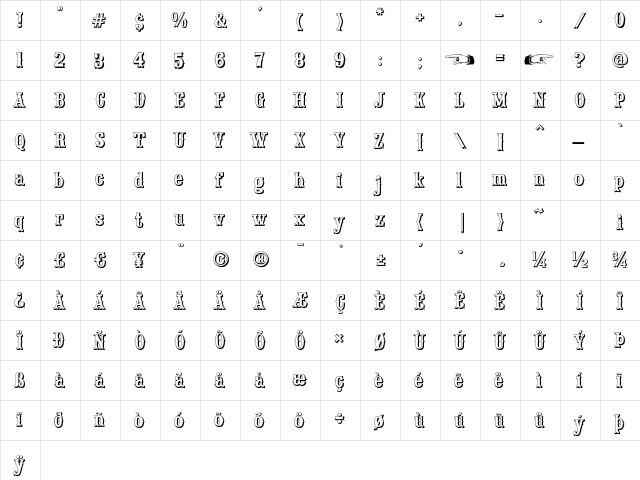
Saloon Girl Open Regular
Design Context for Saloon Girl Open Typeface
Saloon Girl Open echoes the hand-painted signage and woodblock typography of the American frontier, with a warm, rugged personality.
A natural fit for craft spirits, ranch branding, rodeo events, and Americana-inspired design work.
Font Pairing: Combine Saloon Girl Open with a simple slab or neutral sans — period-accurate companions reinforce the vintage feel without competing for attention.
Pro Tip: Use Saloon Girl Open for short, impactful bursts of text — it shines in poster headlines and product names rather than extended copy.